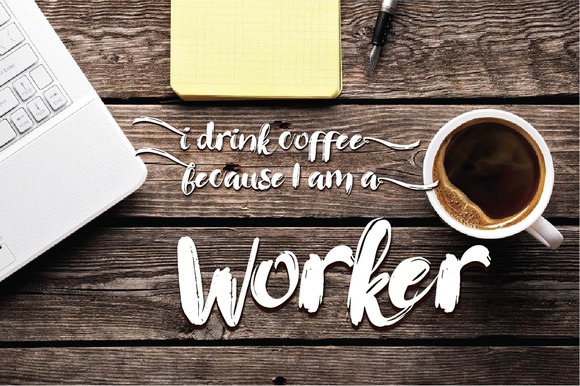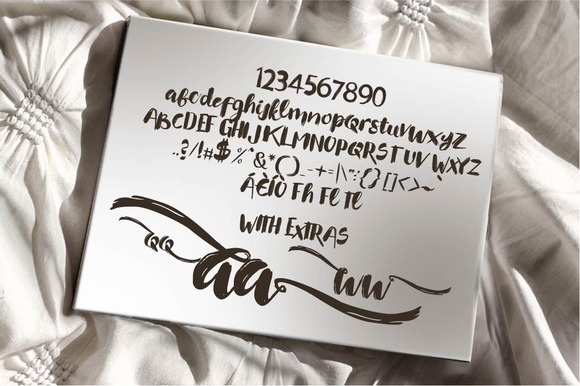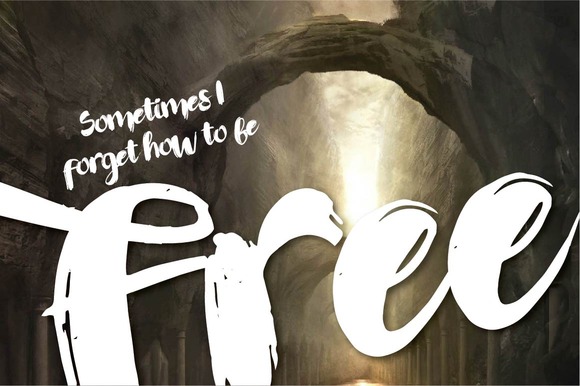
Wendi Typeface
Wendi is a beautiful hand painted script that comes with a set of extras. Highly Suitable for a variety of media design , fashion and posters
Features
• Uppercase
• Lowercase
• Numerals & Punctuations
• Accents (Multilingual characters)